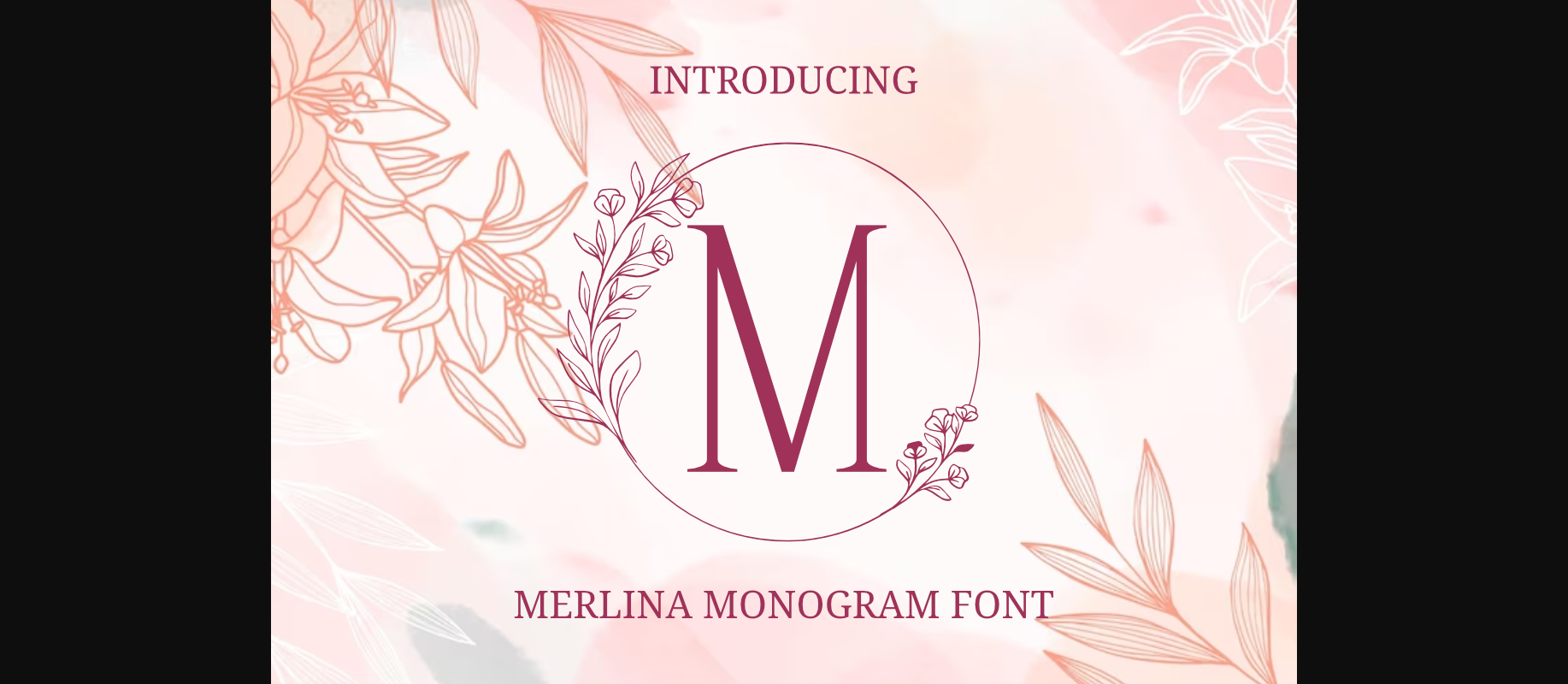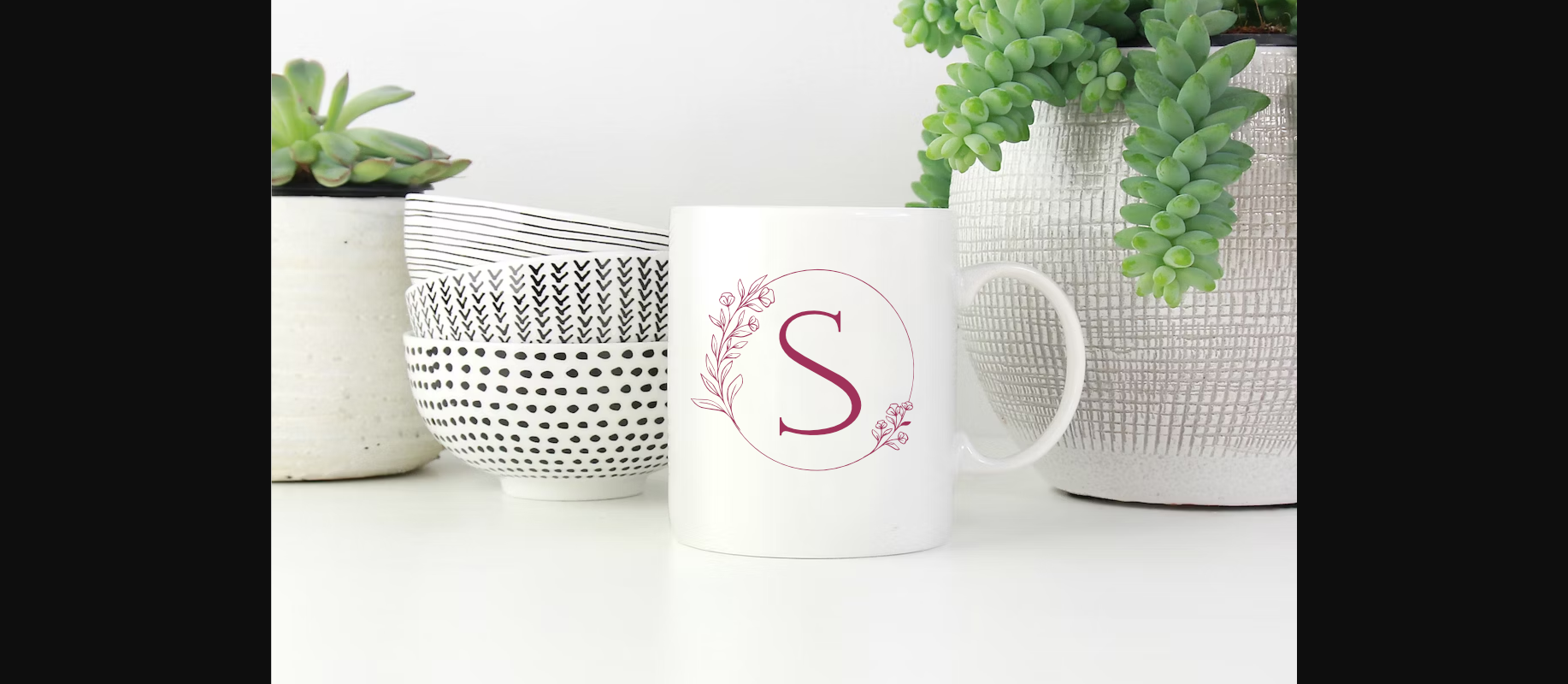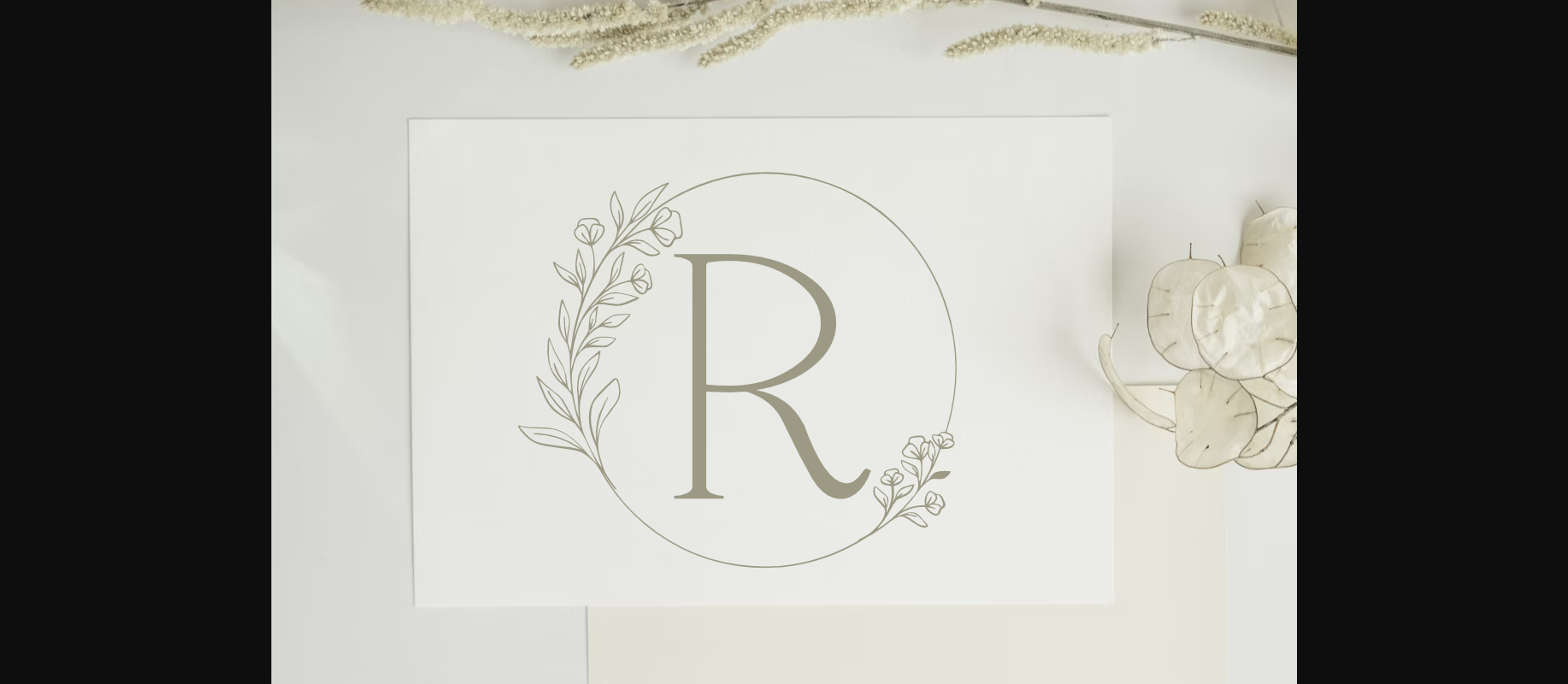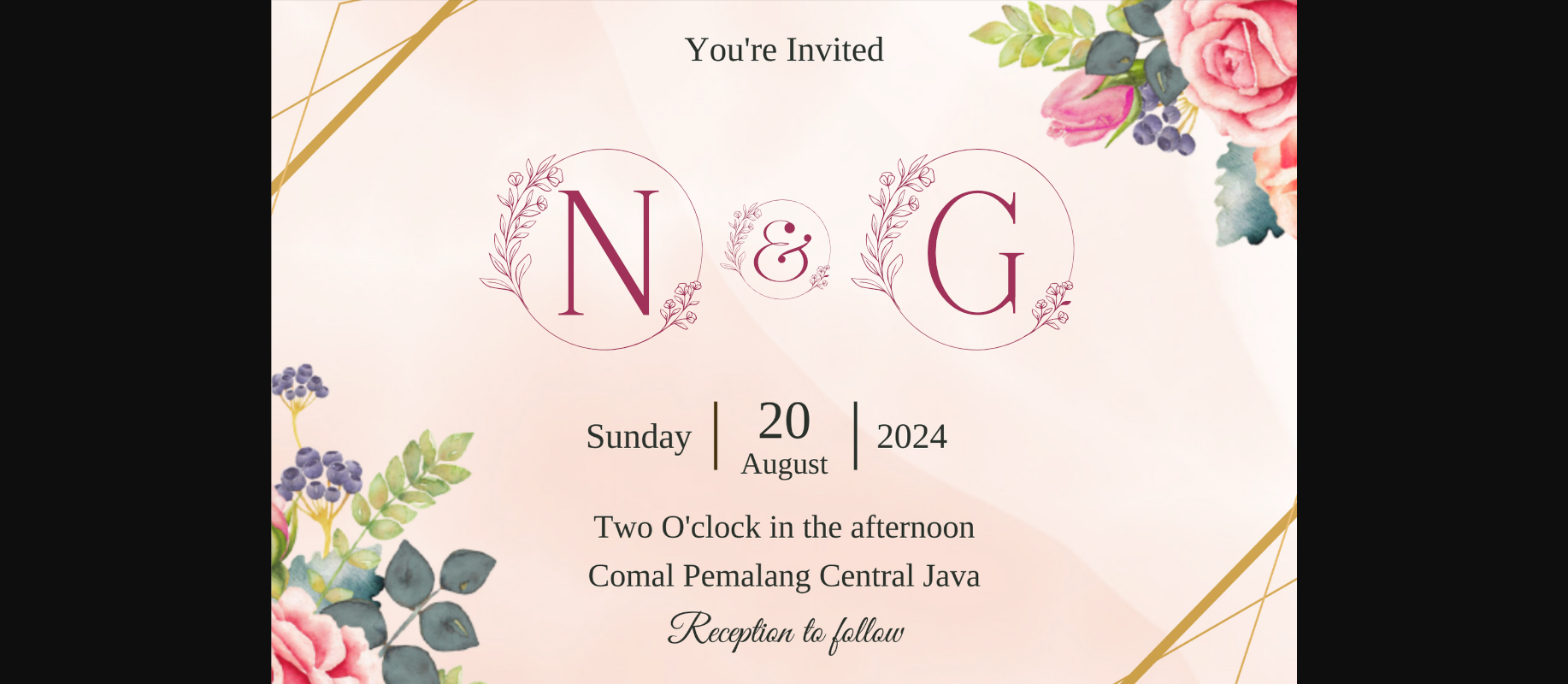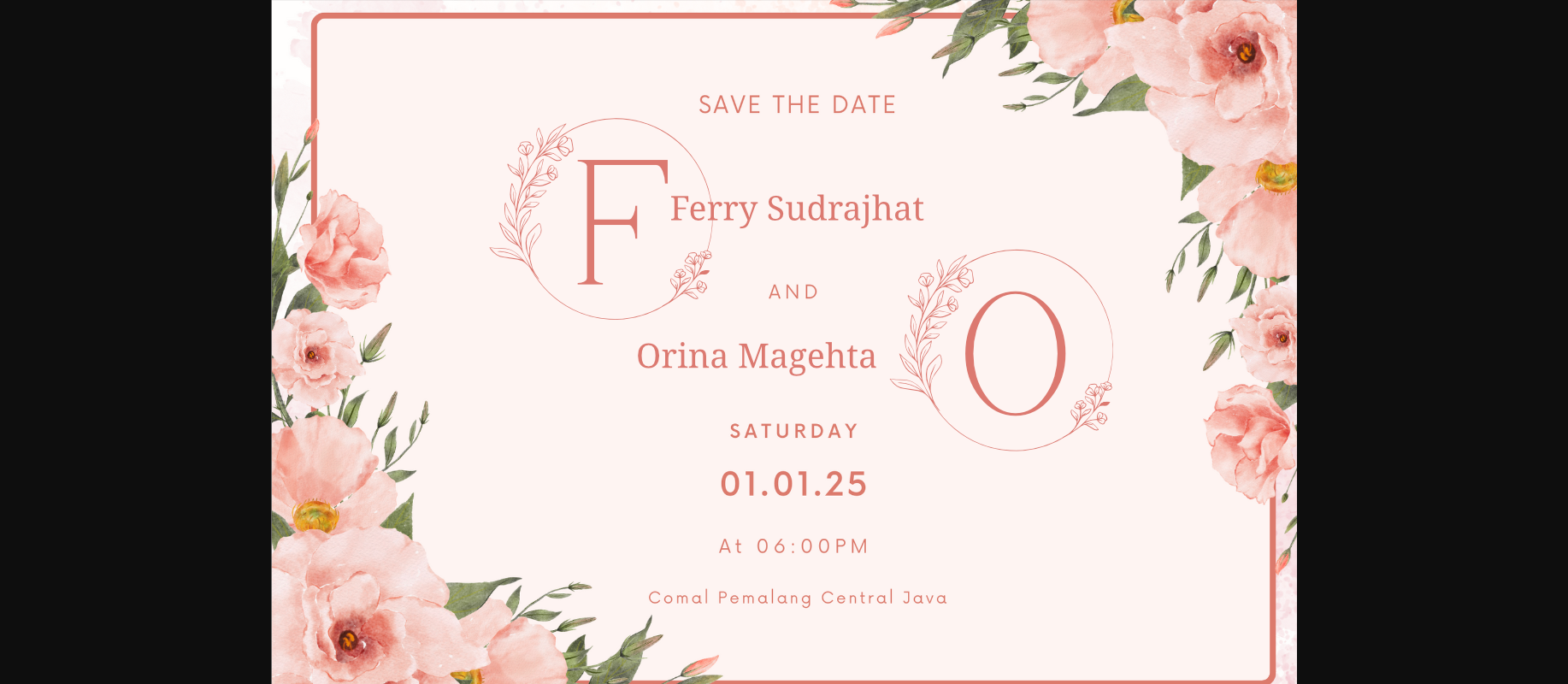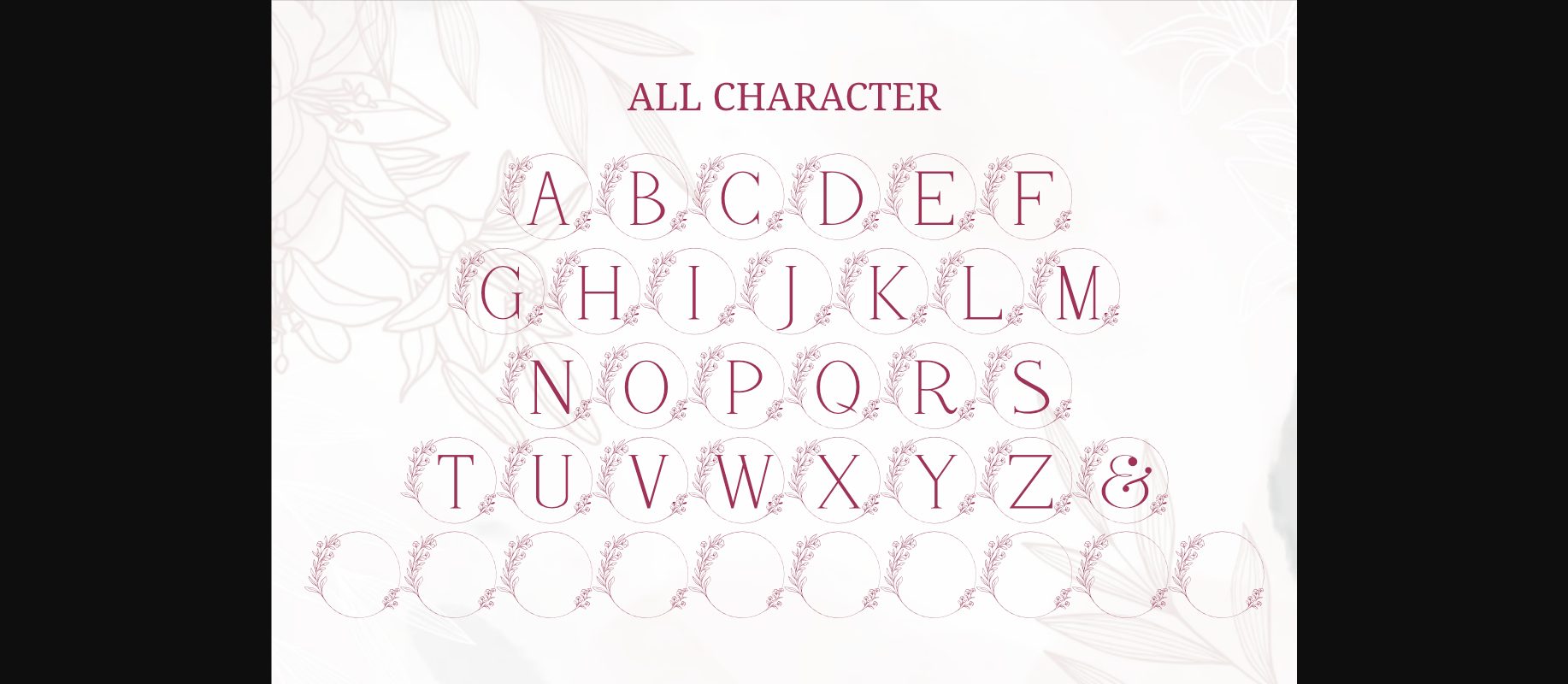
Merlina Font
About Merlina Font
Merlina is a decorative font with a beautiful and elegant style with a beautiful floral theme. This font is very suitable for logos, fashion, identity, branding, bridal, weddings, invitations, initials, key chains, mugs, Cricut, crafts, wood carvings and many other purposes.